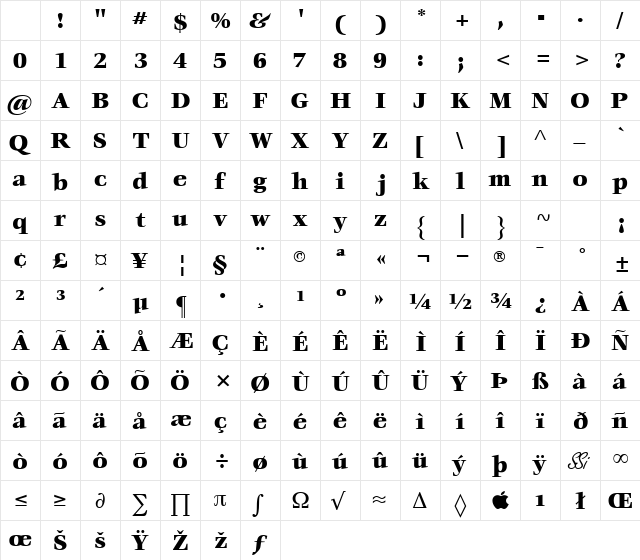
VoraceBlackSSK Normal
Design Context for VoraceBlackSSK
VoraceBlackSSK is a composed and adaptable typeface that performs quietly and consistently across a wide range of design contexts.
Pro Tip: Use VoraceBlackSSK in both headline and body roles to test its range before committing to a single application.